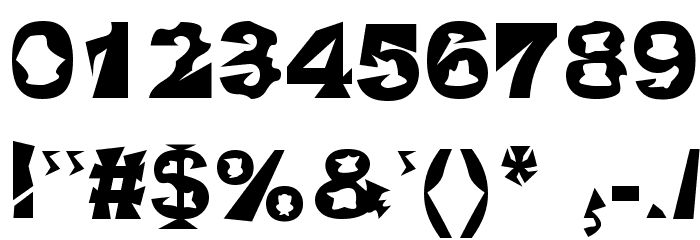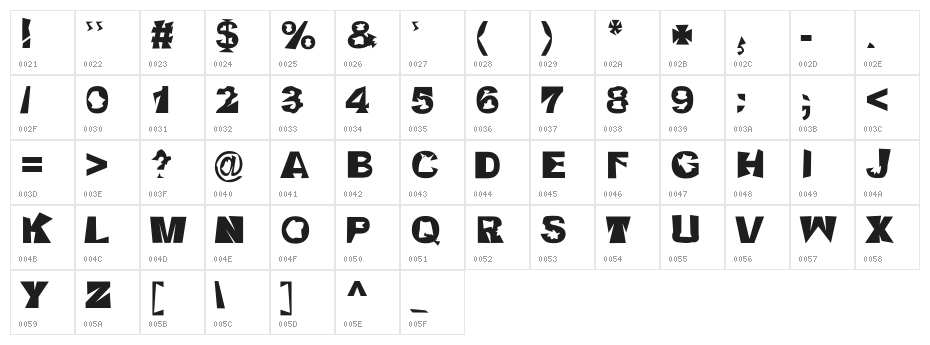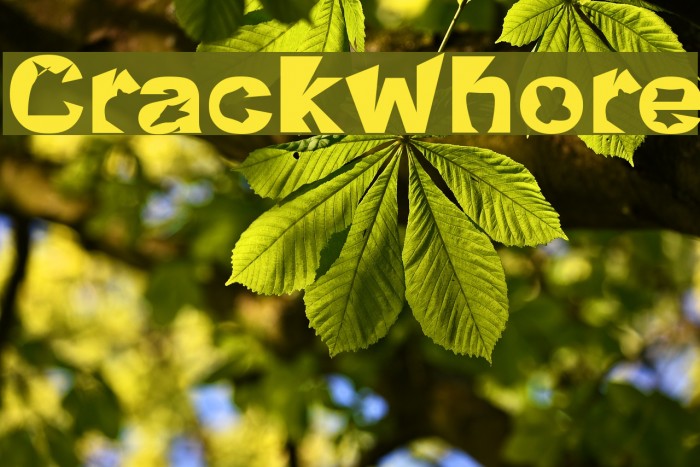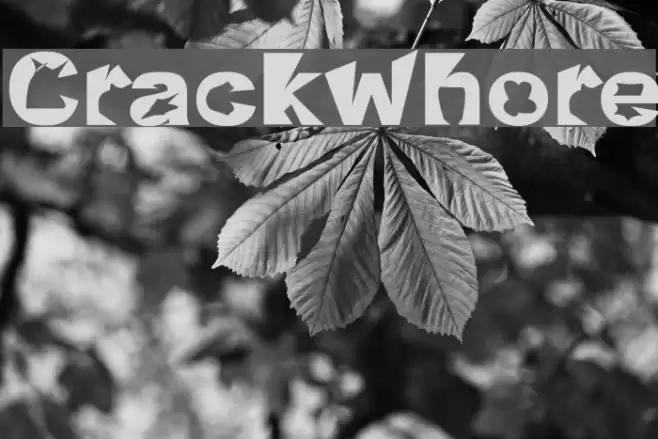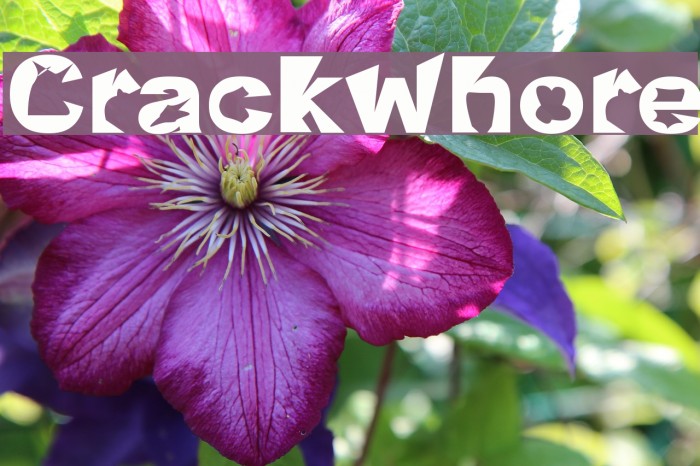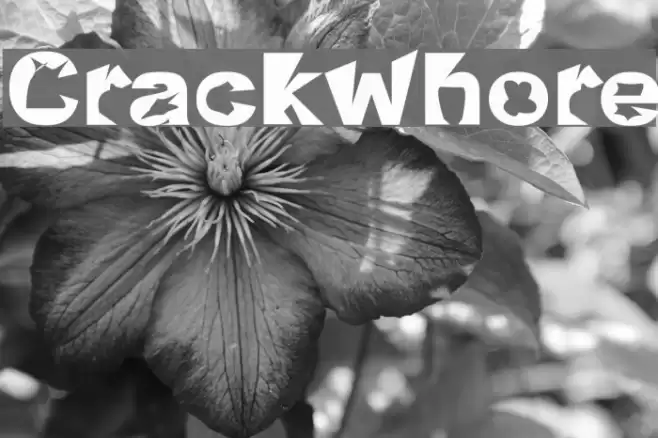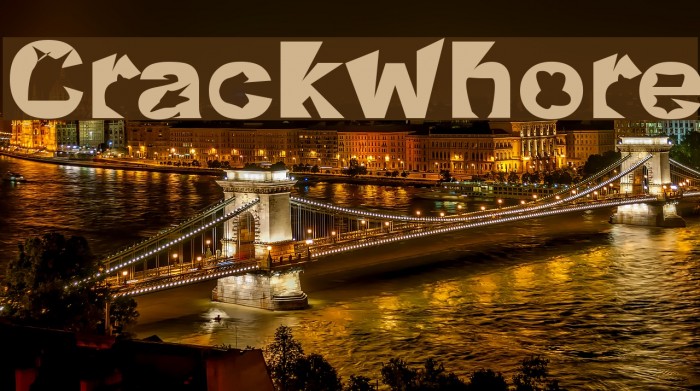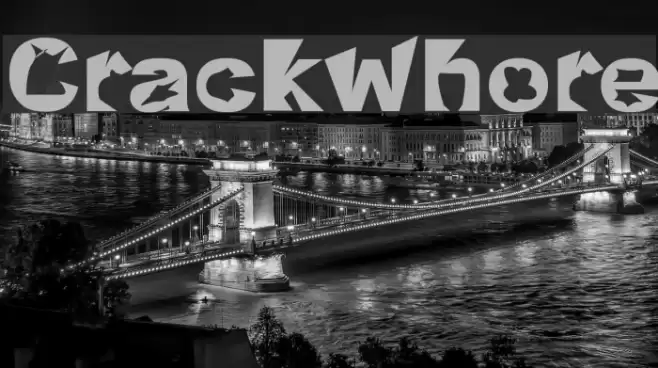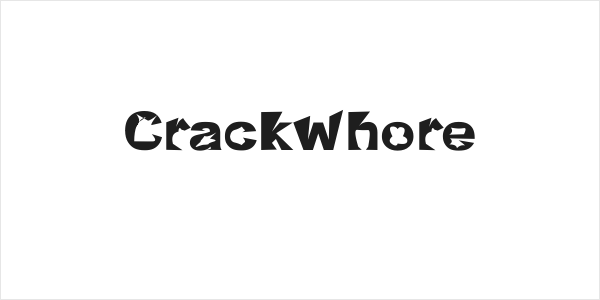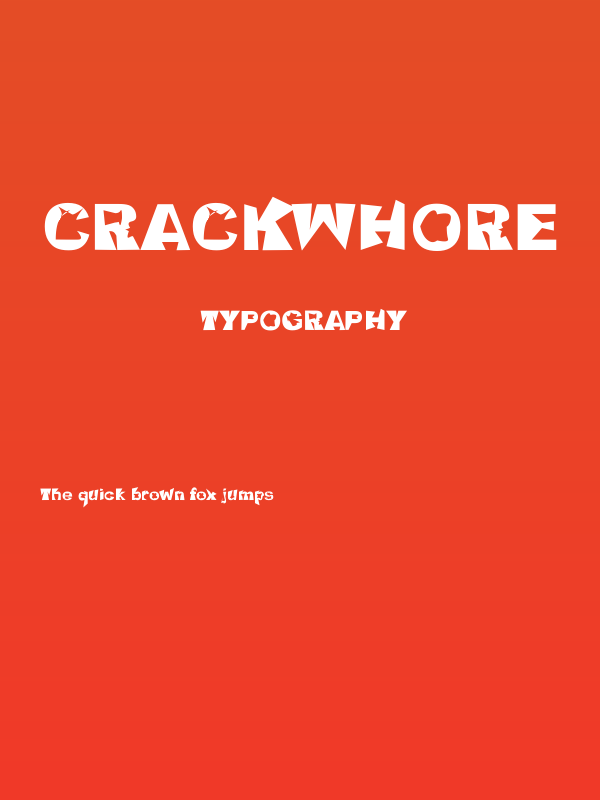
Crackwhore Font
Crackwhore Description
This font features a bold and edgy design with a distressed, fragmented appearance. The characters are heavily stylized, with jagged edges and irregular shapes that give a chaotic and rebellious feel. The uppercase and lowercase letters maintain a consistent theme, with each character appearing as if it has been shattered or torn. The numbers and special characters follow the same design principles, ensuring a cohesive look across all glyphs. This font is highly decorative and makes a strong visual impact, suitable for projects that require a bold statement.
Proposed ProjectsIdeal for music album covers, edgy posters, rebellious branding, and any project requiring a strong, unconventional visual impact.